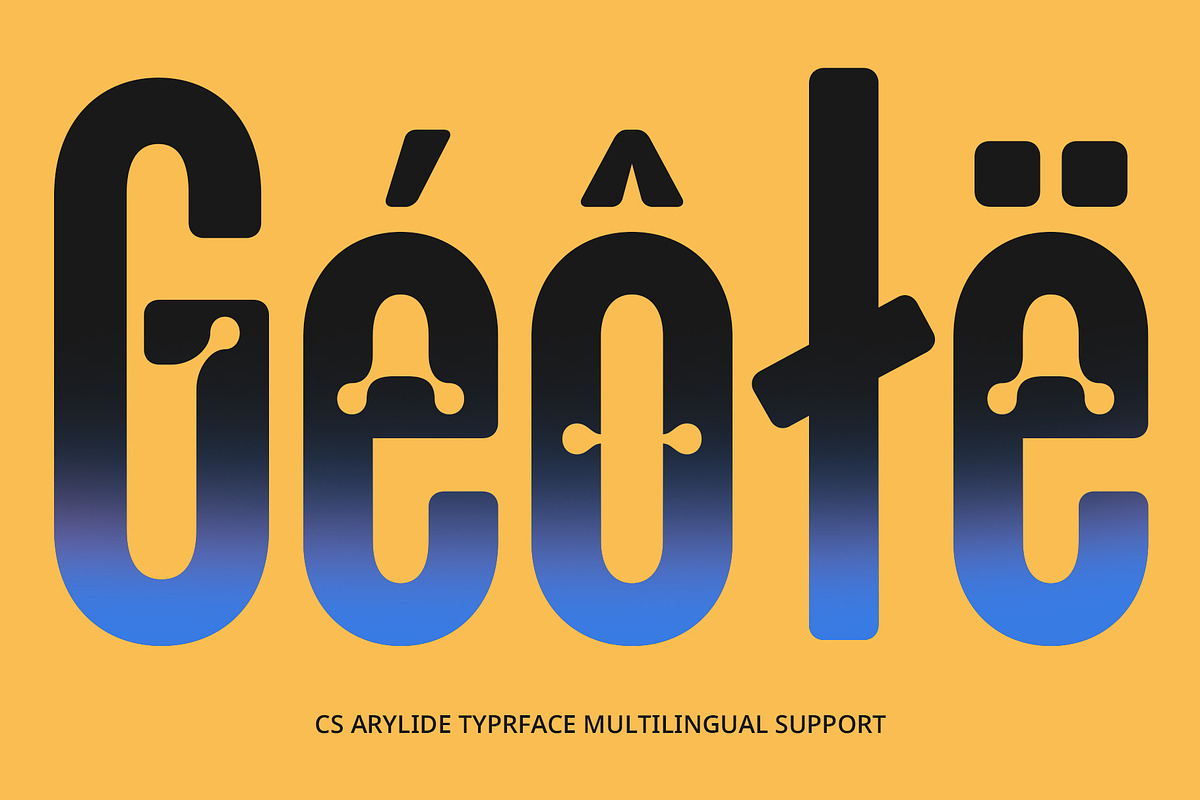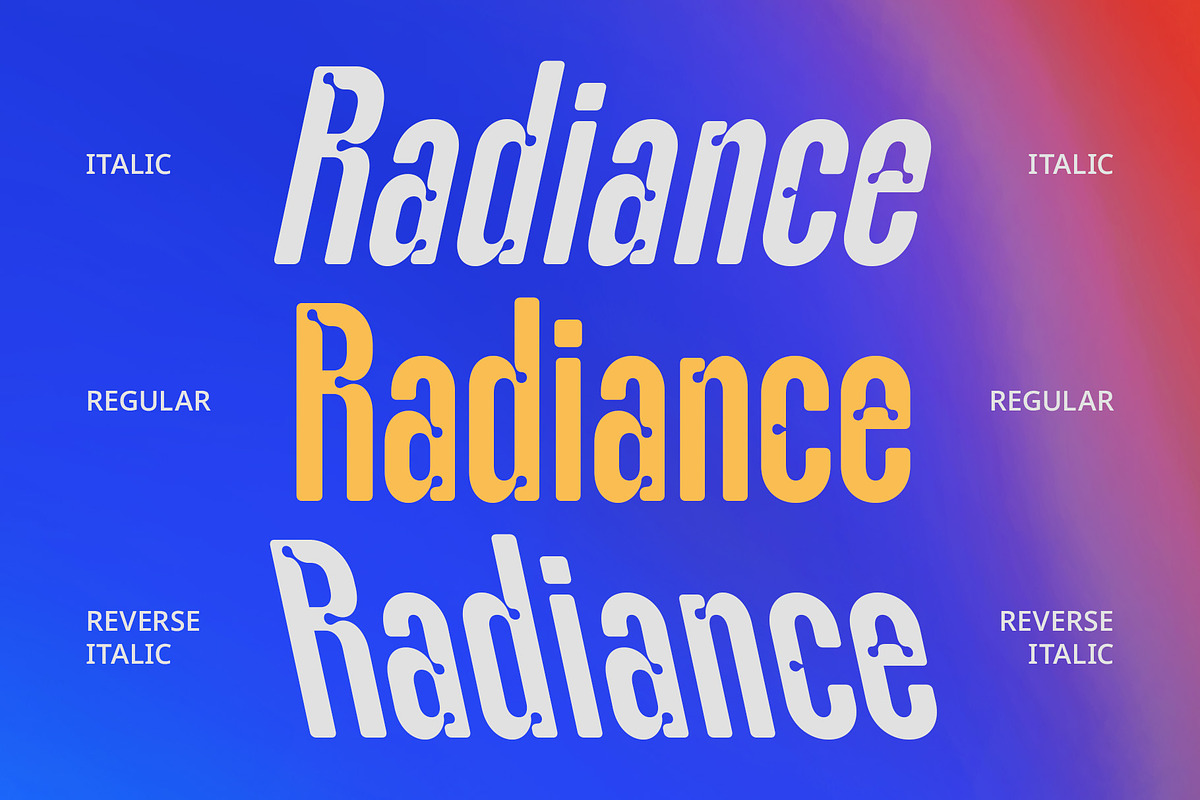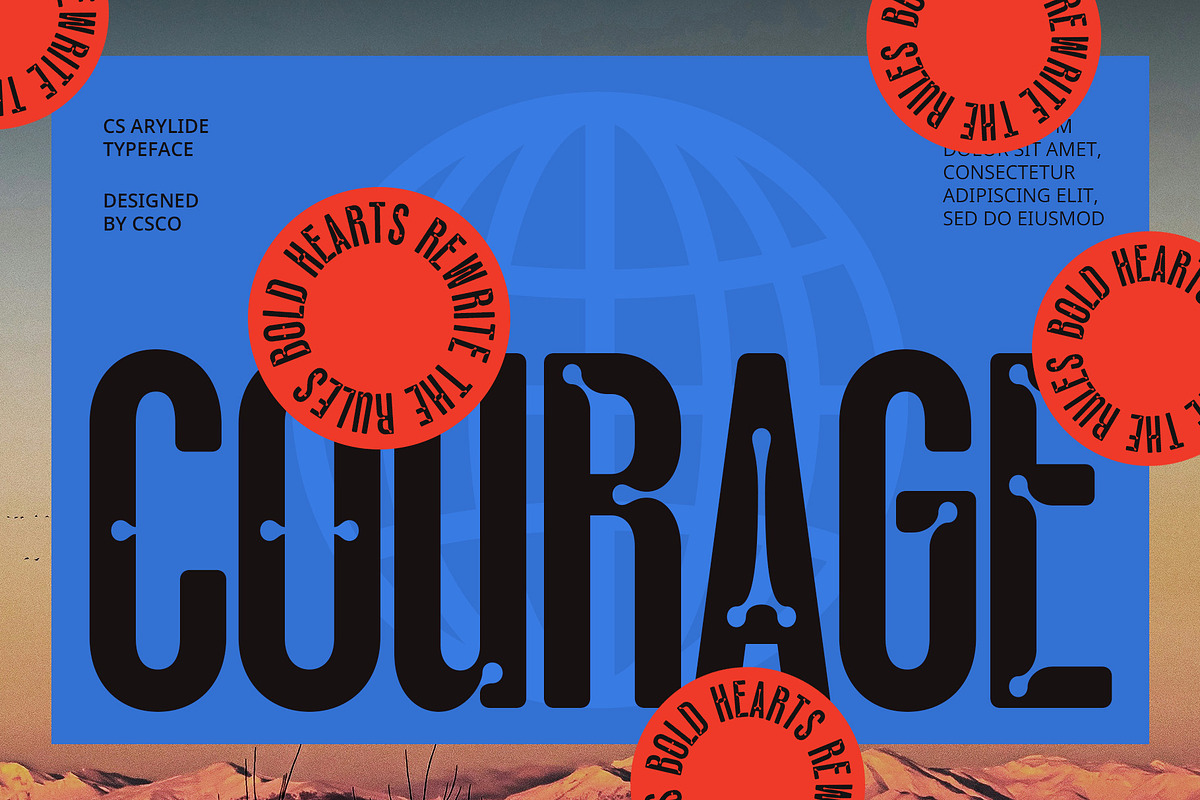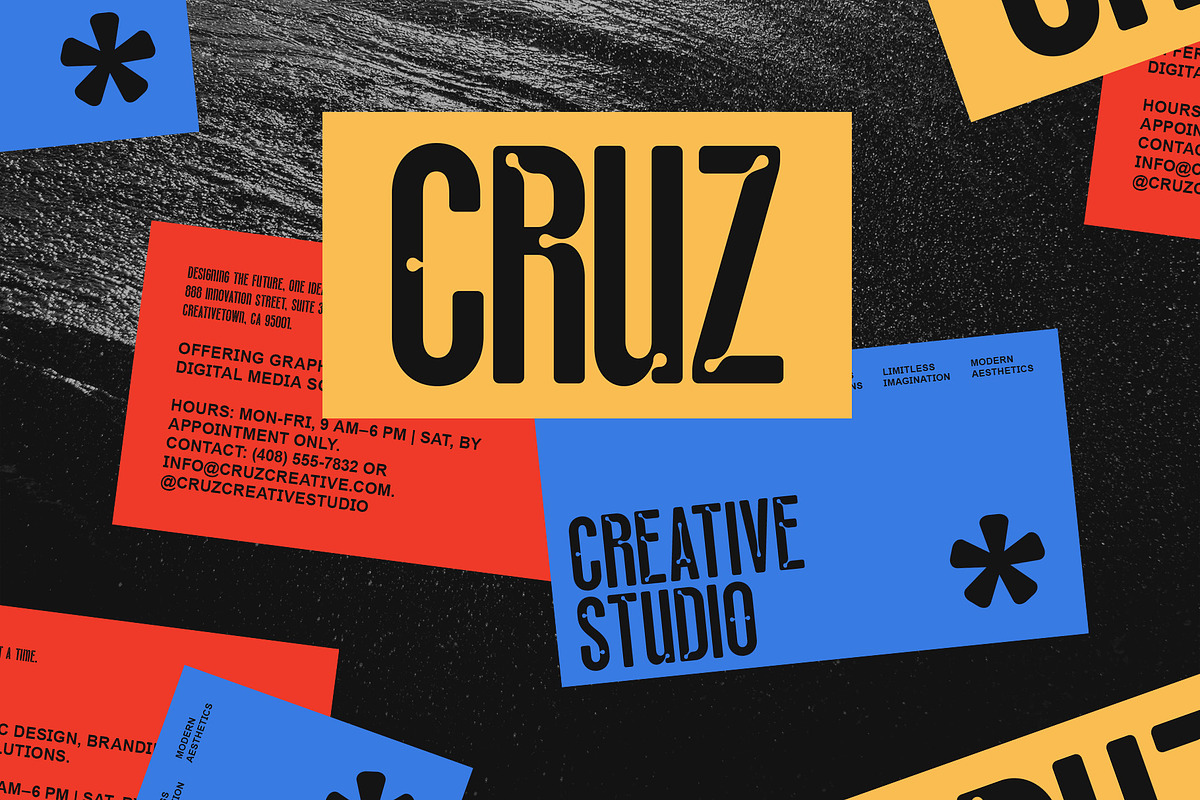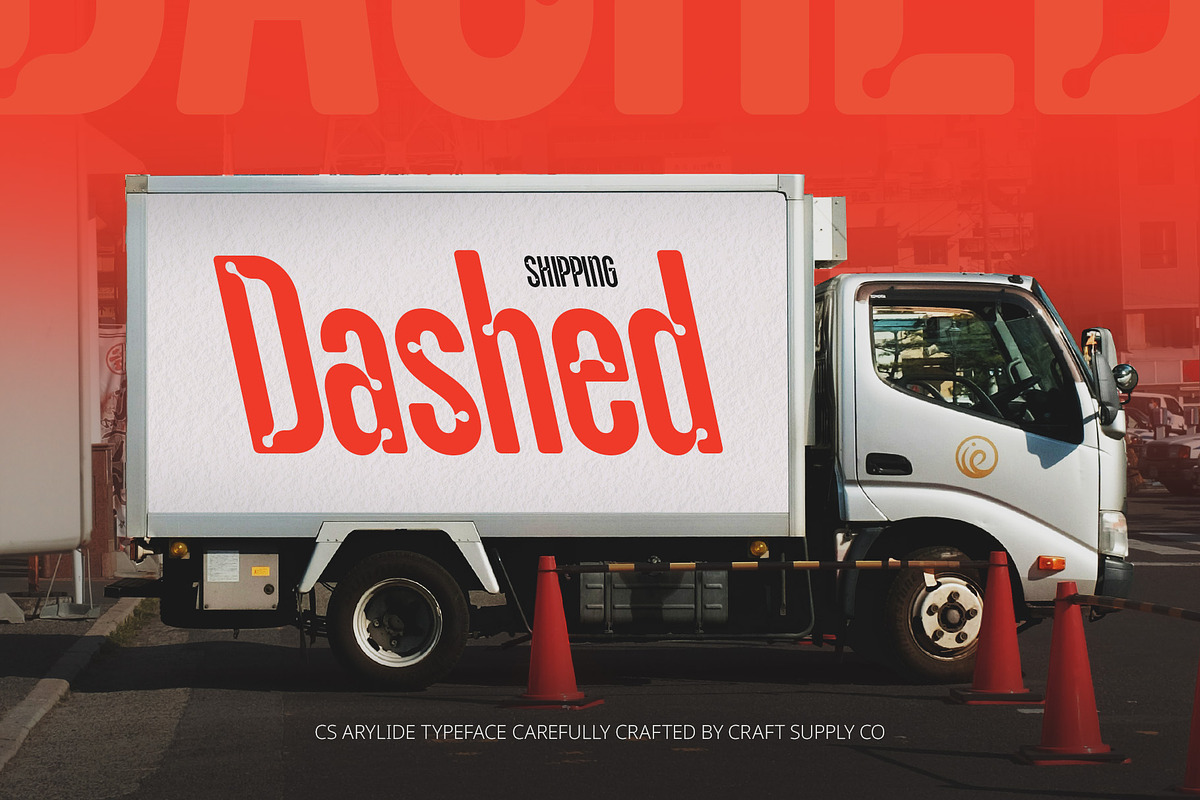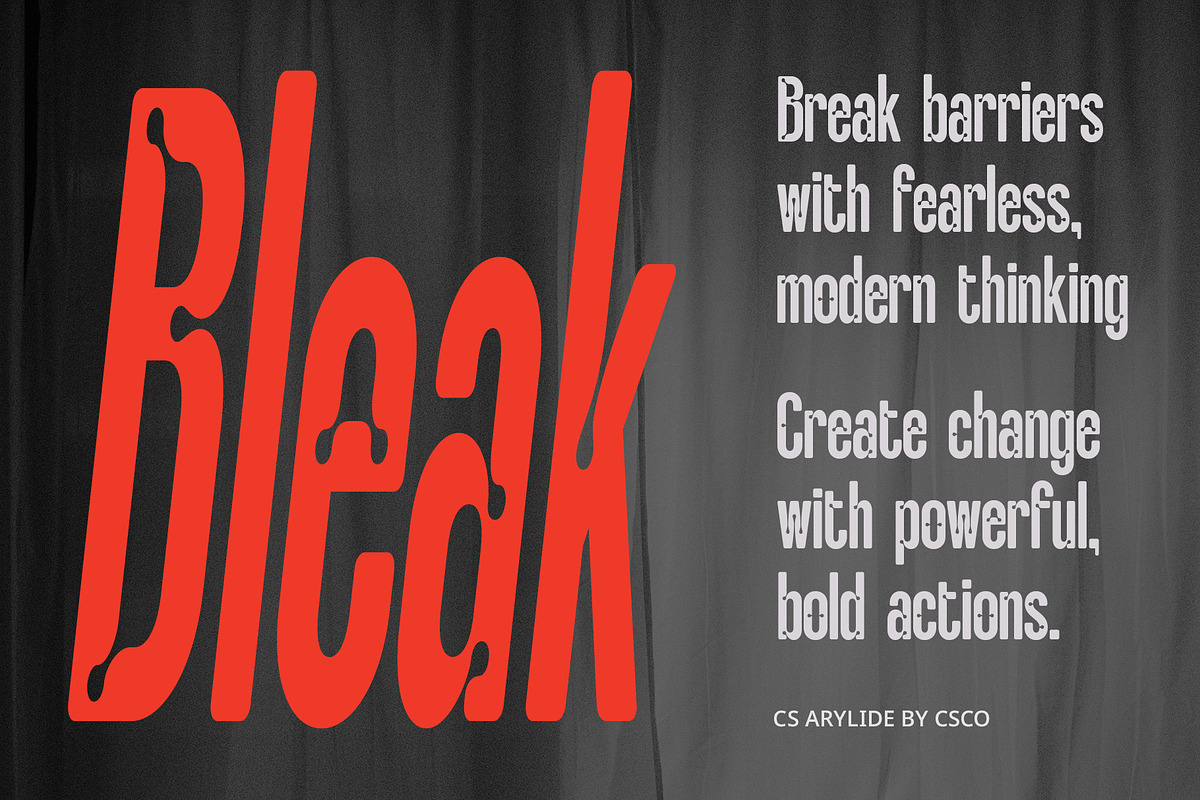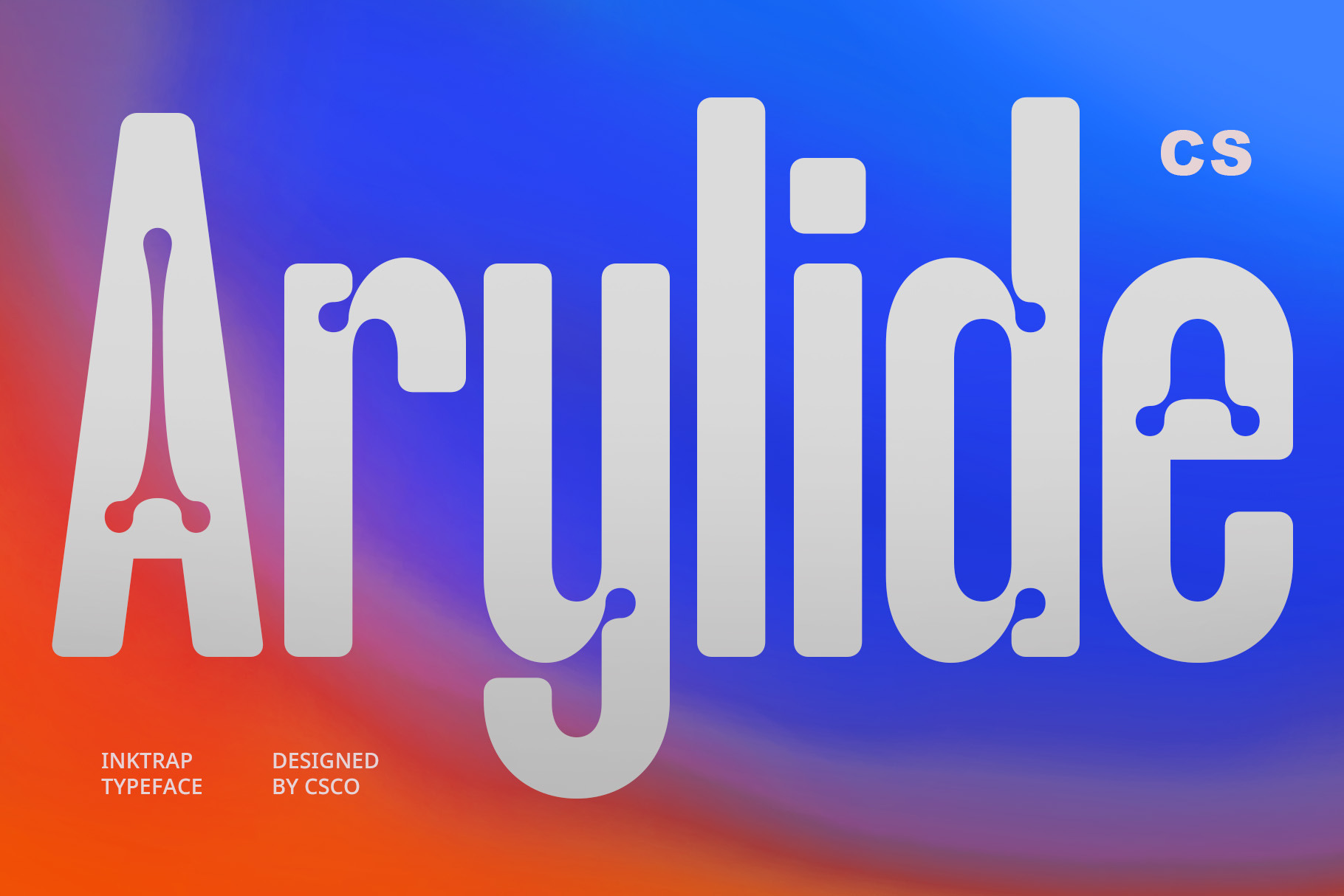
CS Arylide – Inktrap Font
CS Arylide – Inktrap Sans-Serif Font
Sleek, Modern, and Highly Legible CS Arylide is a contemporary sans-serif font that fuses sharp precision with smooth, rounded curves, creating a unique and highly readable typeface. Featuring an inktrap design, this font introduces subtle indentations at the ends of strokes, enhancing legibility and ensuring clarity even at smaller sizes. The condensed form offers a compact, space-efficient design, making it perfect for projects requiring both impact and economy in space.
Perfect Balance of Professionalism and Approachability The rounded edges of CS Arylide bring a soft, approachable feel to the font, which contrasts beautifully with the precision of its inktrap design. This combination of sharpness and softness makes it versatile, suitable for both formal and friendly uses. Whether you’re working on sleek branding, digital interfaces, or modern advertisements, this font strikes a balance between professionalism and a welcoming, contemporary vibe.
Ideal for Branding, Digital and Print Projects CS Arylide is designed to stand out in digital and print formats alike. Its clean, compact design makes it a great choice for user interfaces, logos, advertisements, and other branding materials that require clarity and space efficiency.